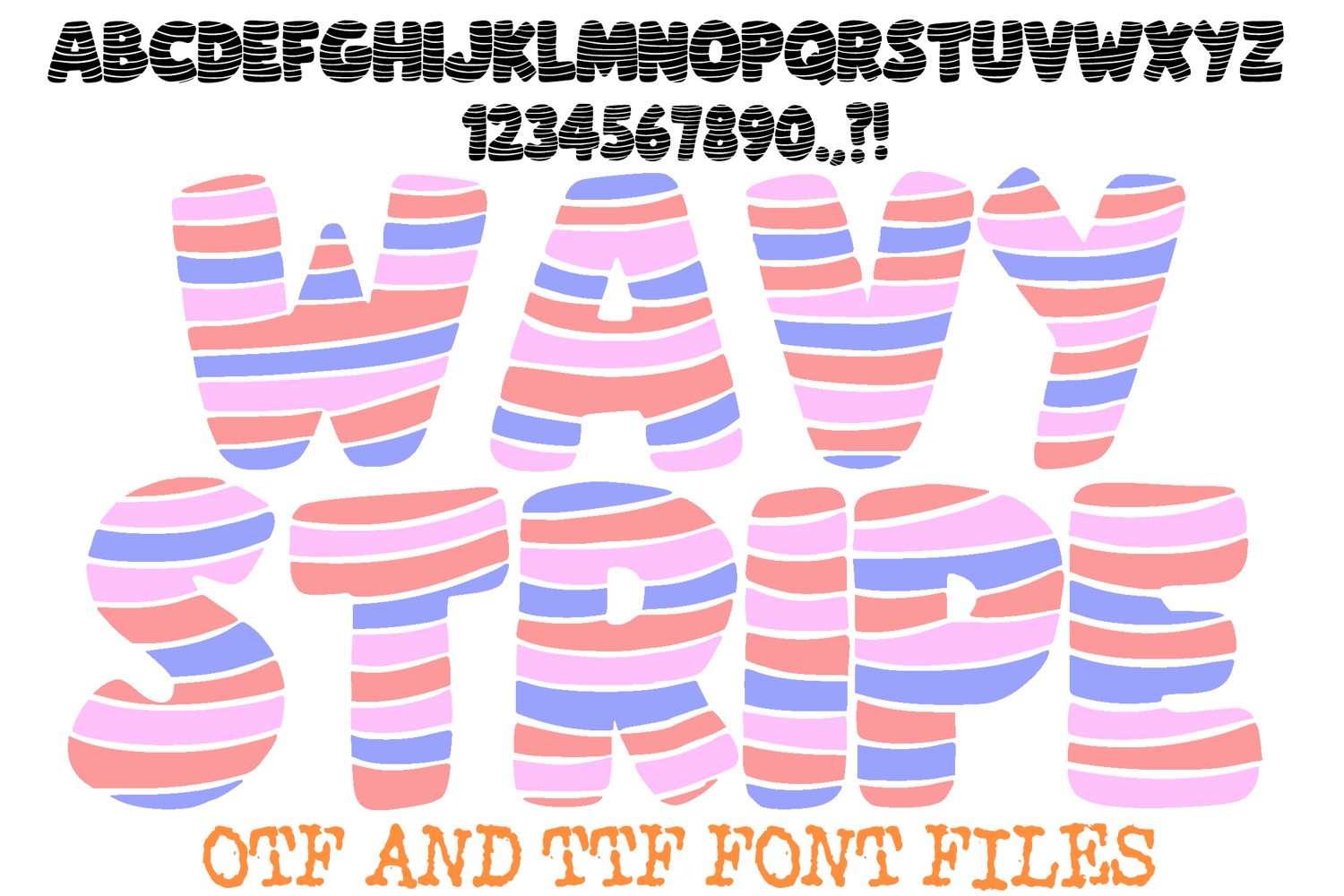
Wavy Stripe Doodle Font Letters Typography Hand Drawn ABC
Add a ripple of excitement to your designs with the Wavy Stripe Doodle Font! This eye-catching display typeface features thick, chunky letterforms and numbers filled with a dynamic pattern of white horizontal waves against a solid black base. The hand-drawn, slightly irregular outlines give this font a playful "doodle" personality that is perfect for modern, whimsical projects.
The high-contrast, monochrome style makes this font jump off the page, making it an excellent choice for bold headers, unique apparel, and standout social media graphics. Whether you are creating a "Zebra" themed party invitation or a funky modern art poster, these stripy characters bring instant texture and movement to your work.
Dynamic Wave Pattern: Every character (A-Z) and number (0-9) is filled with a unique, flowing horizontal stripe motif.
Bold Impact: The thick, rounded shapes ensure maximum visibility for titles and short phrases.
Artisanal Feel: Hand-doodled edges provide a charming, organic look compared to standard computer-generated fonts.